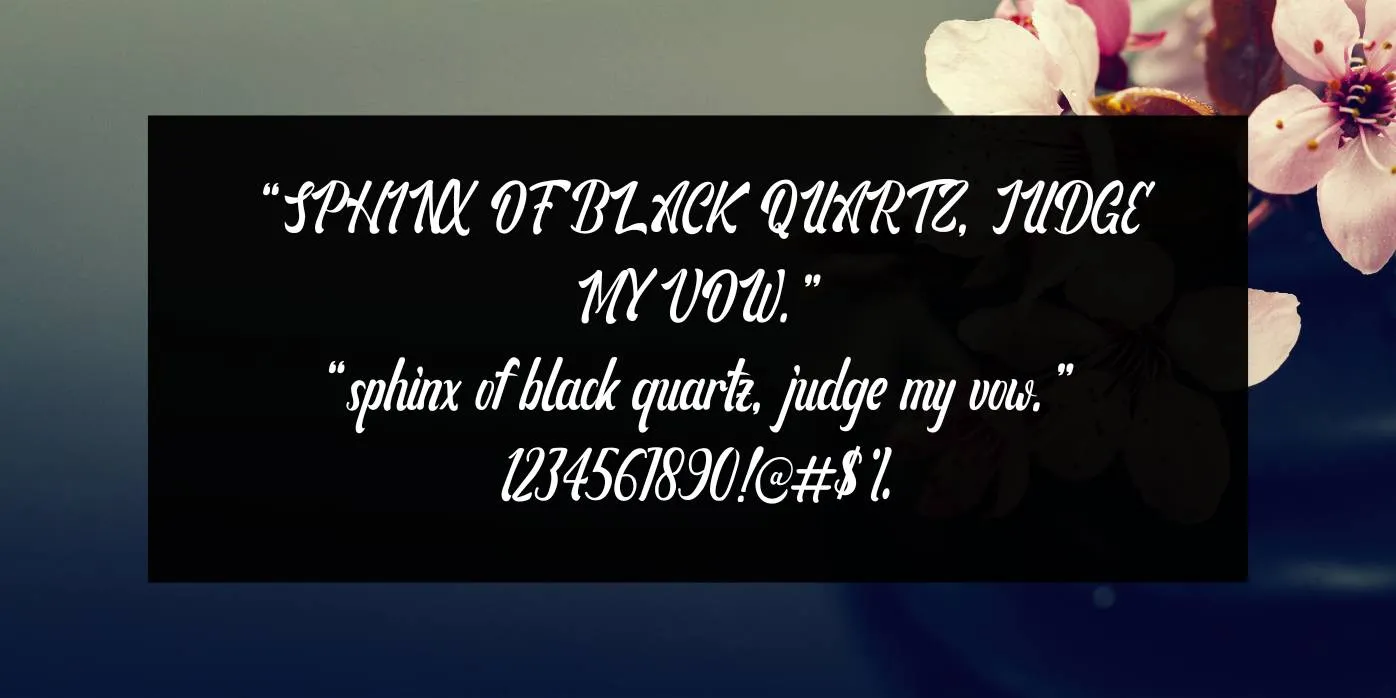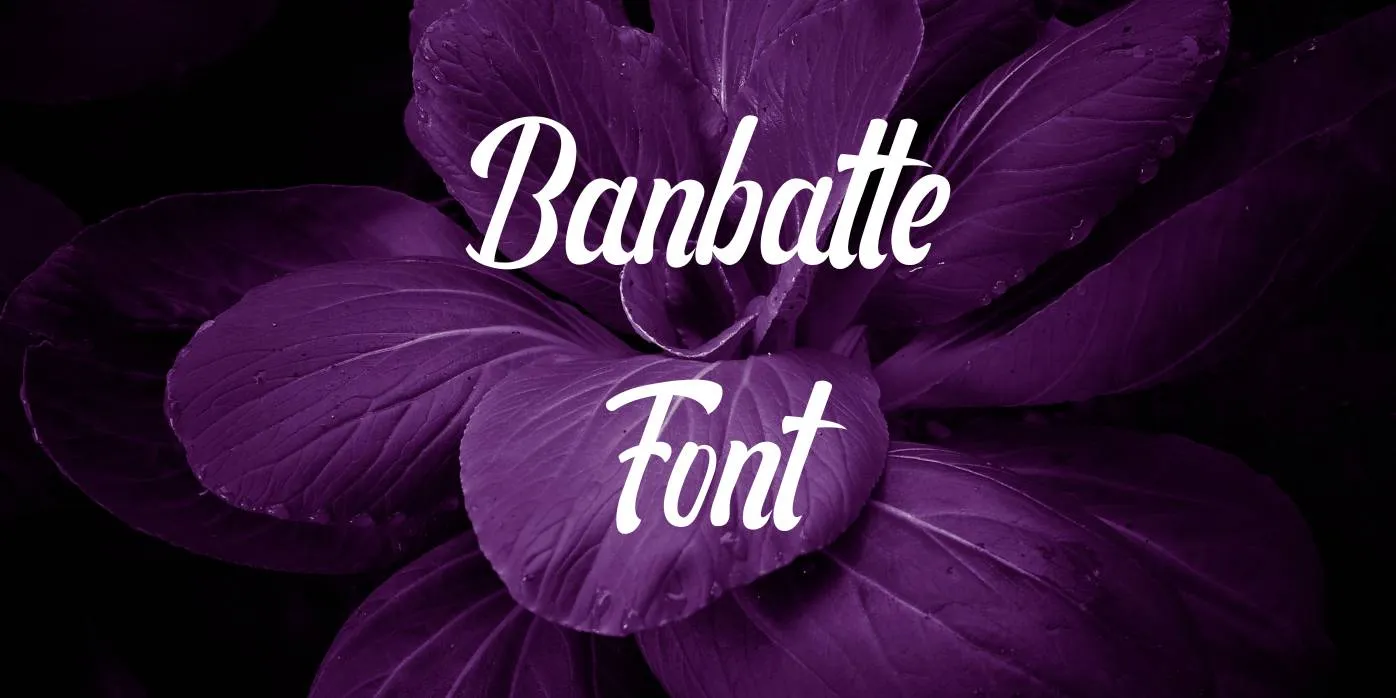
Ganbatte Font
Ganbatte Font is one of the best fonts of this era. This is a script-type of a font. GoldenGraph Design is the designer of this texture. The characters of this typeface are amazing and stunning because of their cool style.